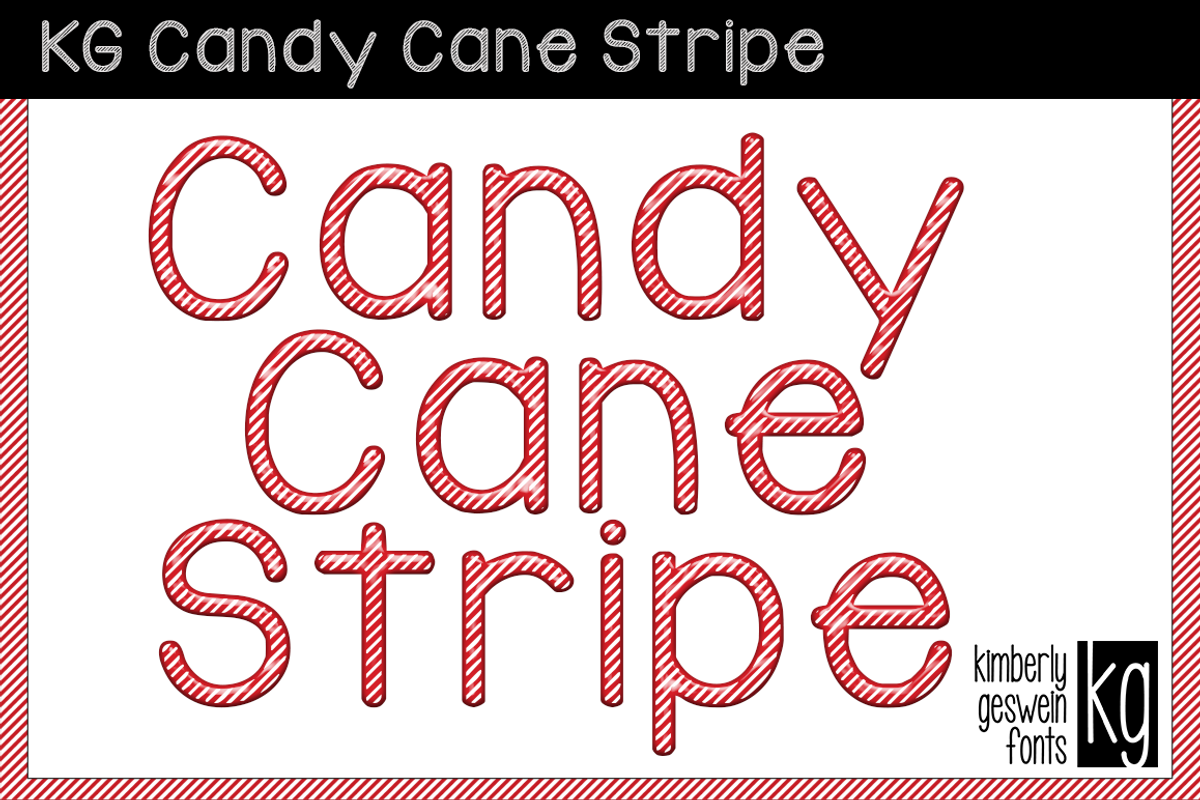
KG Candy Cane Stripe Font
KG Candy Cane Stripe Font by Kimberly Geswein Fonts is a font selected for branding, posters, packaging, typography.
KG Candy Cane Stripe Font by Kimberly Geswein Fonts fits naturally into Branding, posters, packaging, typography.